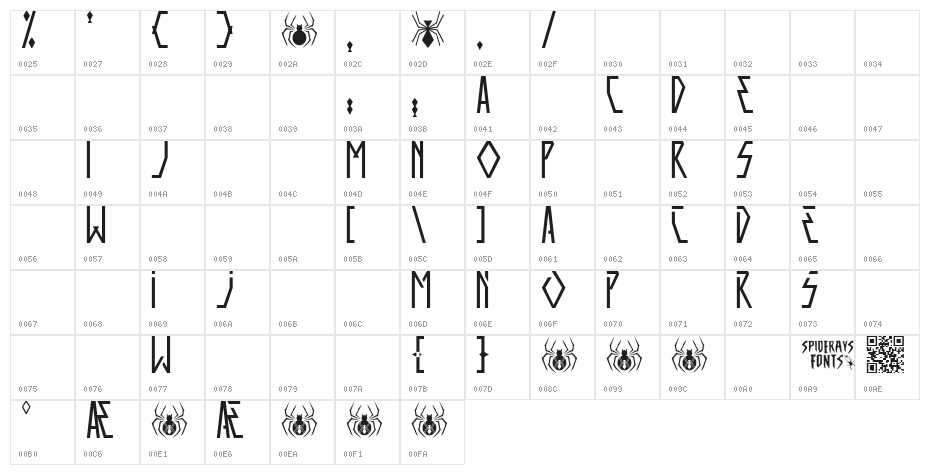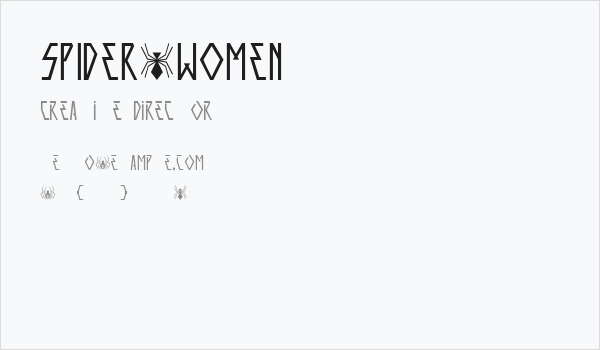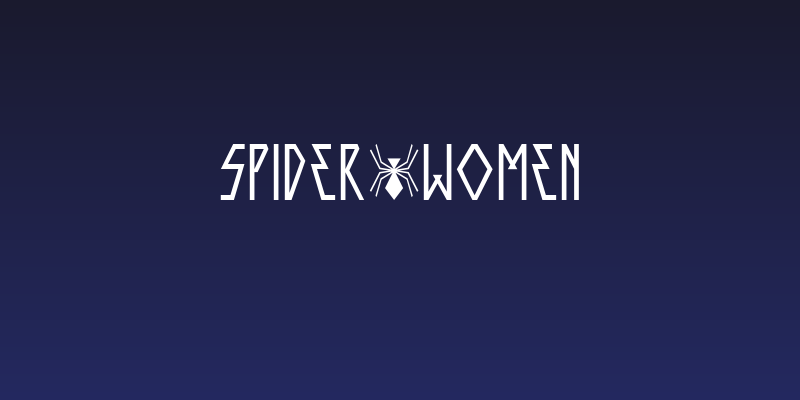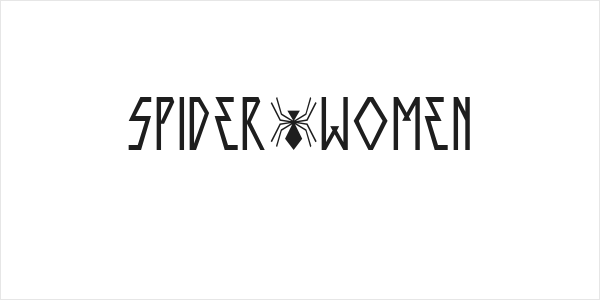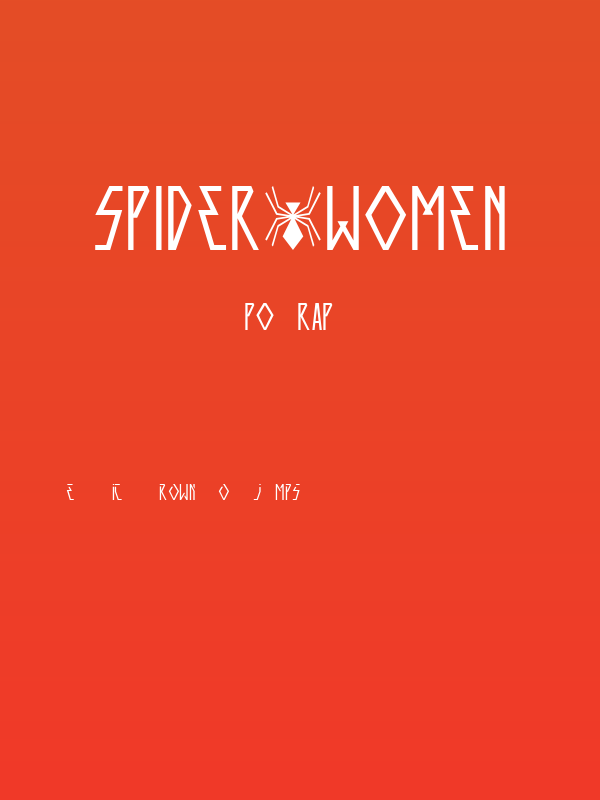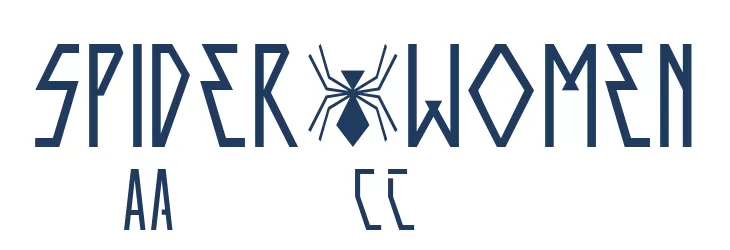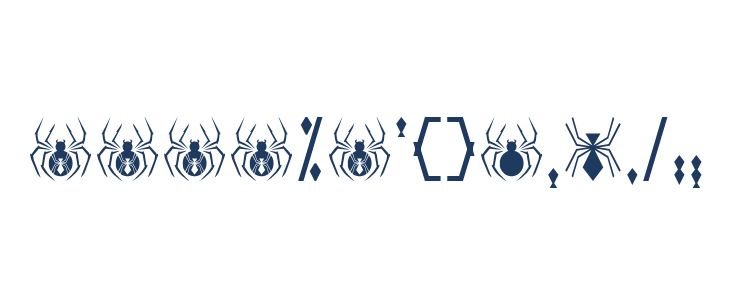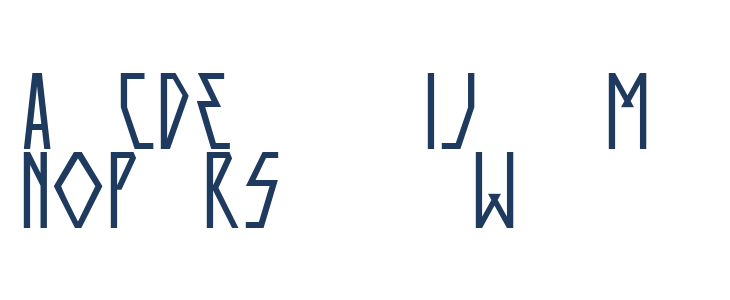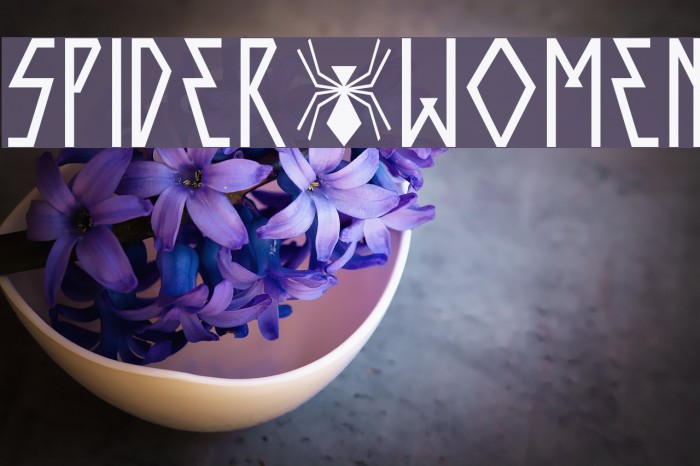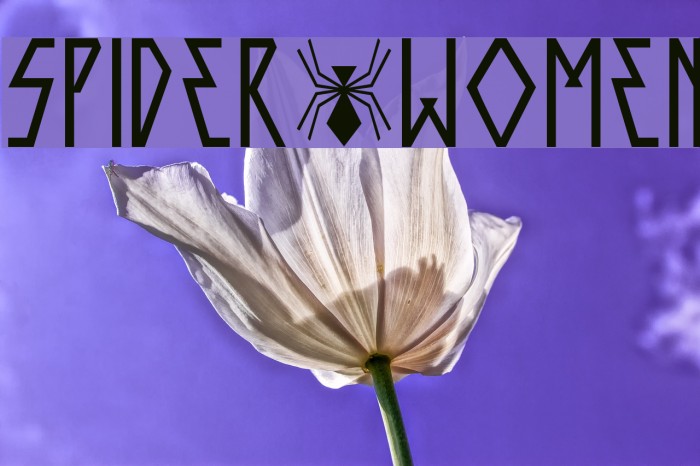
SPIDER-WOMEN Font
SPIDER-WOMEN Description
This font features a unique, angular design with a futuristic and geometric aesthetic. The characters are composed of sharp, straight lines and angles, giving them a distinct, edgy appearance. The uppercase and lowercase letters maintain a consistent style, with some characters incorporating diagonal cuts and unconventional shapes. The numbers and special characters follow the same design principles, ensuring a cohesive look throughout. The font's overall style is bold and striking, making it ideal for projects that require a modern and eye-catching typeface.
SPIDER-WOMEN
| Proposed Projects | Ideal for sci-fi themed designs, video game graphics, modern posters, and branding for tech companies. |